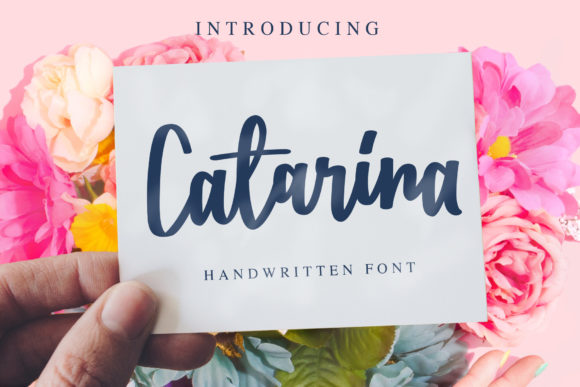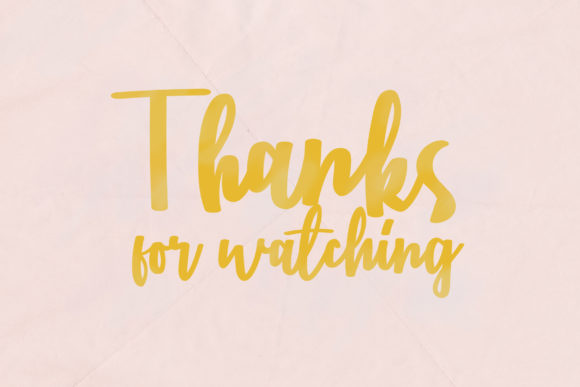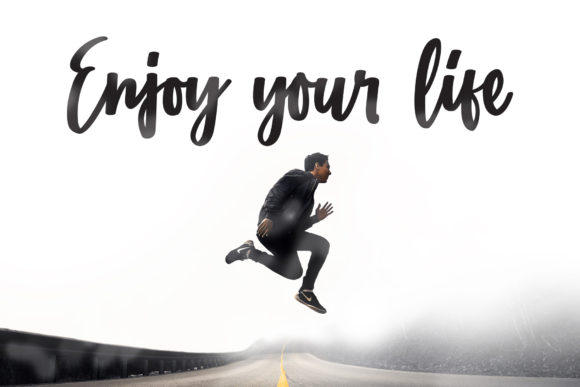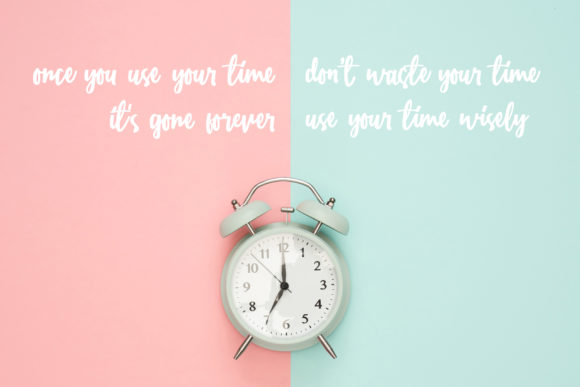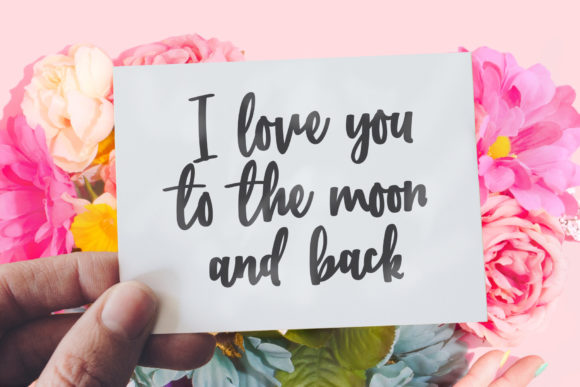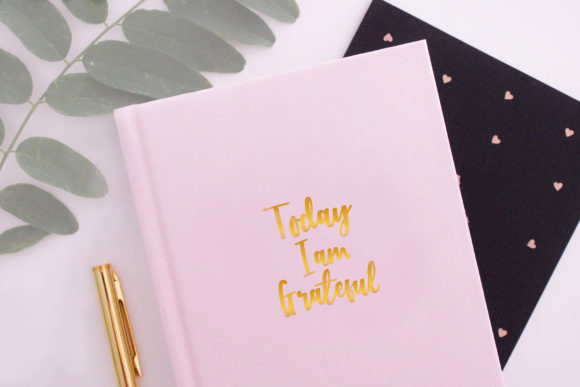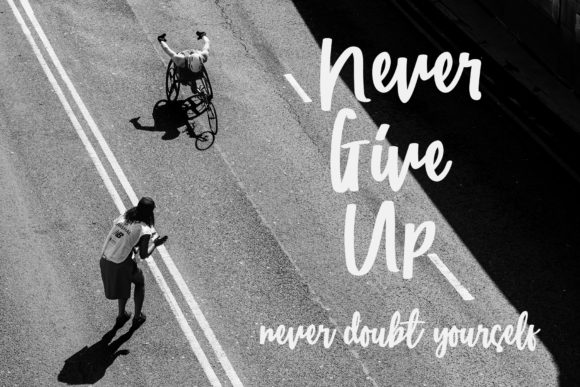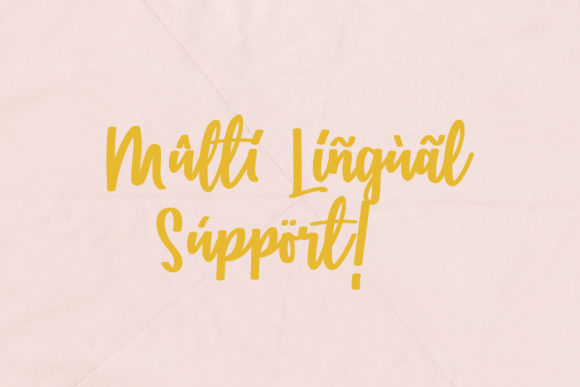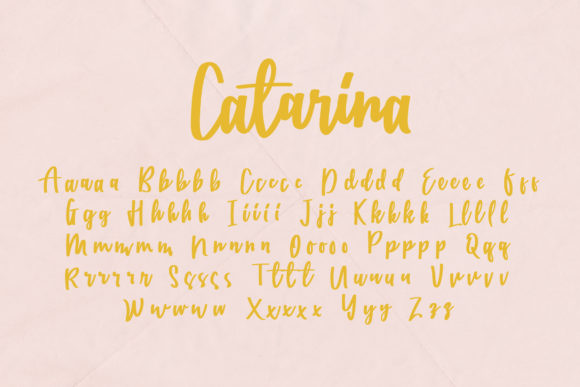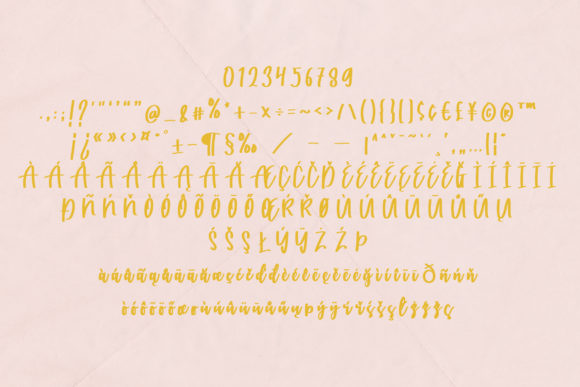
Catarina Font
About Catarina Font
The Catarina is a simple handwritten script with a classy style. It can be used for watermarks, quotes, albums, logos, business cards, and much more. Catarina is here to elevate your work to the highest level!